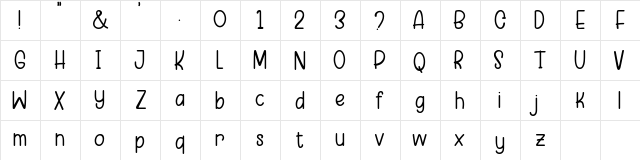
Hellia Agera Regular
| Designer | Holydie Sudio ( Yugo Priyat Moko ) |
Design Context for Hellia Agera Typeface
Hellia Agera offers clean, dependable letterforms without strong stylistic allegiance, making it a practical choice for designers who need flexibility.